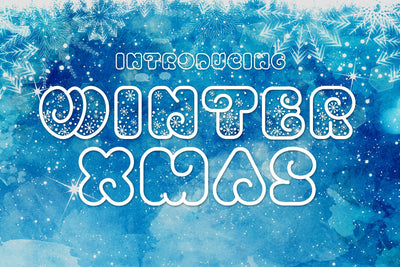
Winter Xmas Decorative Font
Winter Xmas is a cute and fun decorative font, perfect to use for your winter and Christmas-themed designs. Fall in love with its authentic feel and use it to create gorgeous invitations, beautiful stationary art, eye-catching social media posts, and cute greeting cards. Add it now to your fonts library, and start creating spectacular designs!